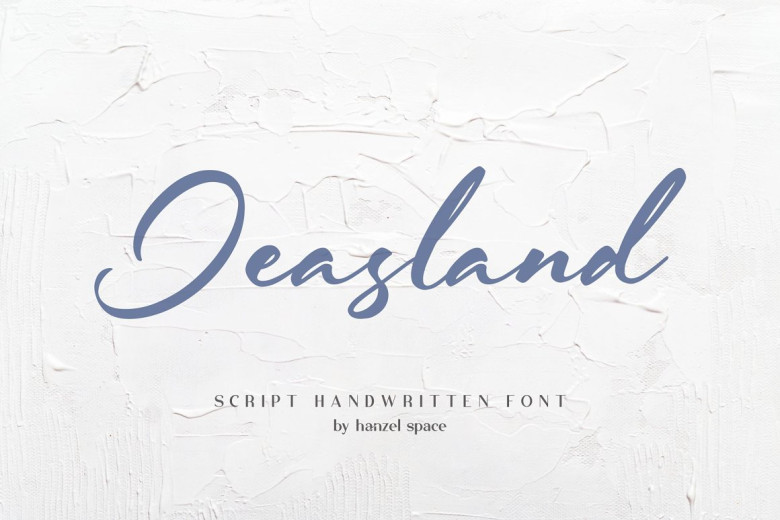
Jeasland Font
Jeasland is a font script, I made for your needs and easy to read so comfortable to wear, you can use it as a logo, badge, badge, packaging, title, poster, t-shirt / clothing, greeting cards, business cards, and wedding invitations and many again. Flowing characters are ideal for making interesting messages according to your taste.
Jeasland Script Handwritten Font